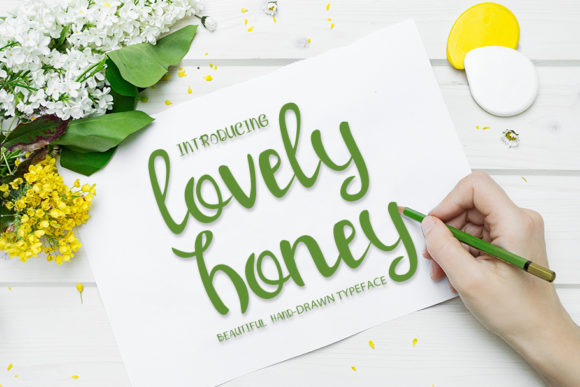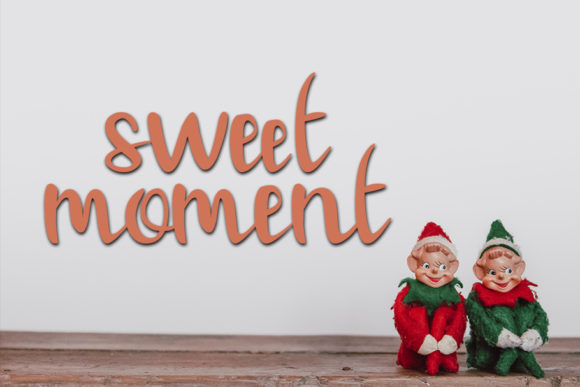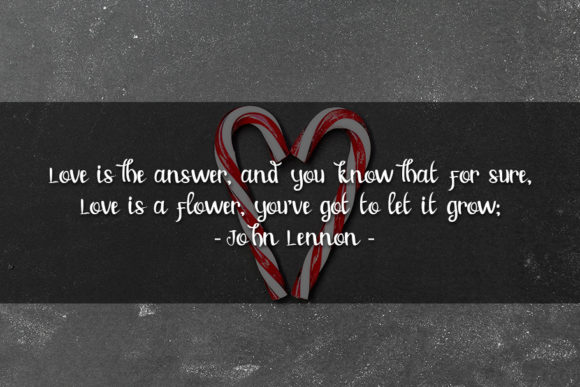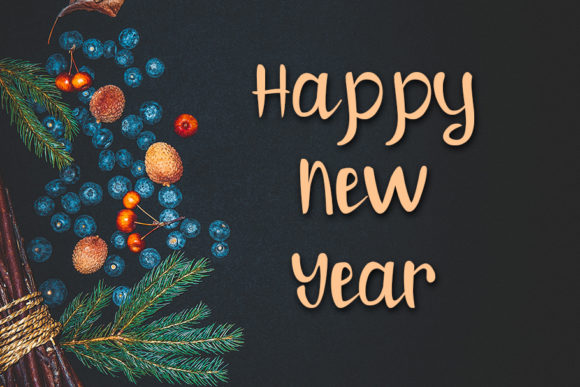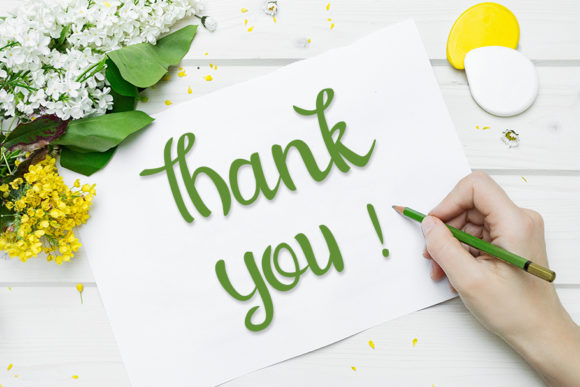
Lovely Honey Font
About Lovely Honey Font
The Lovely Honey is a beautiful hand-drawn typeface. It has a fresh and modern look which be used for greeting cards, branding materials, quotes, posters, and much more!